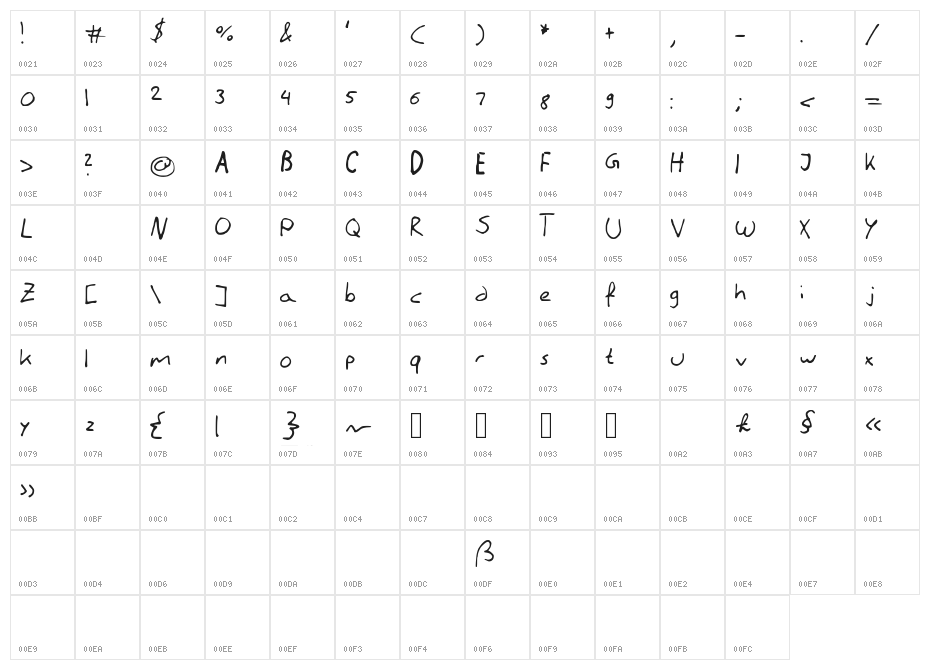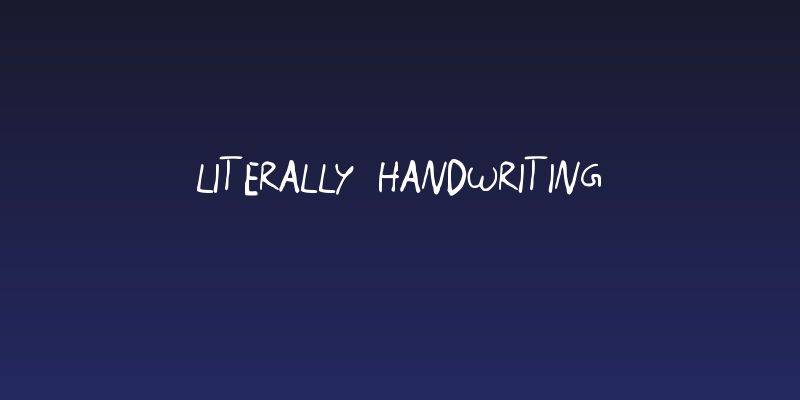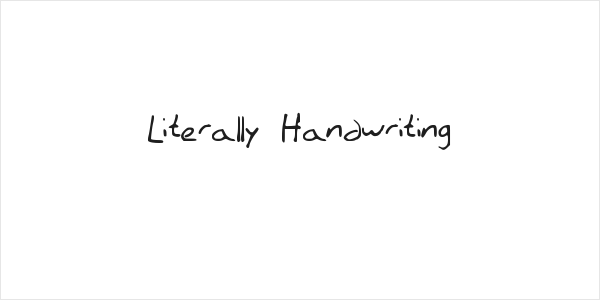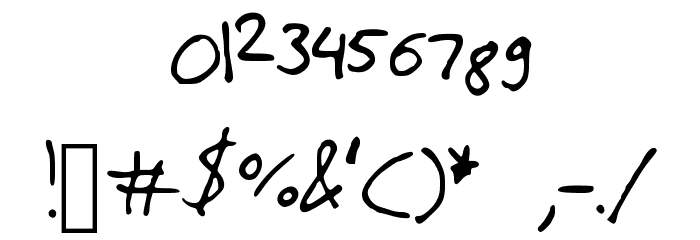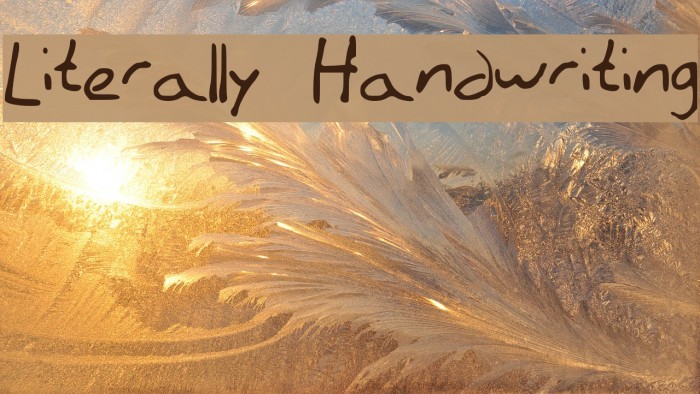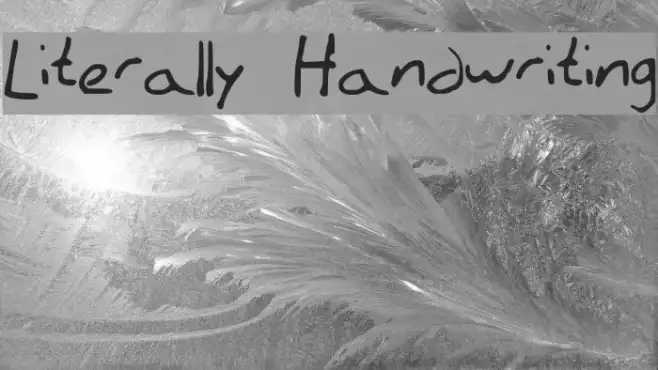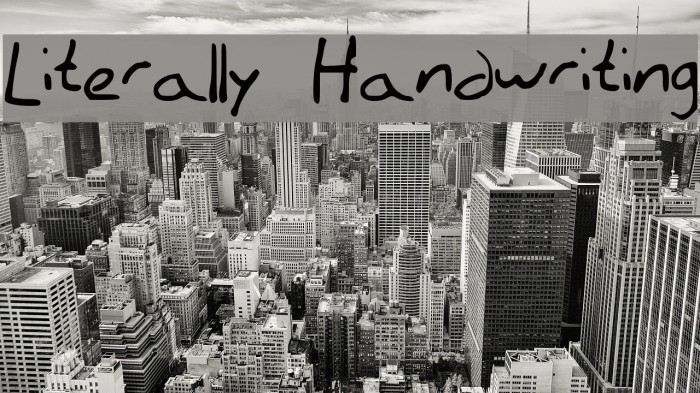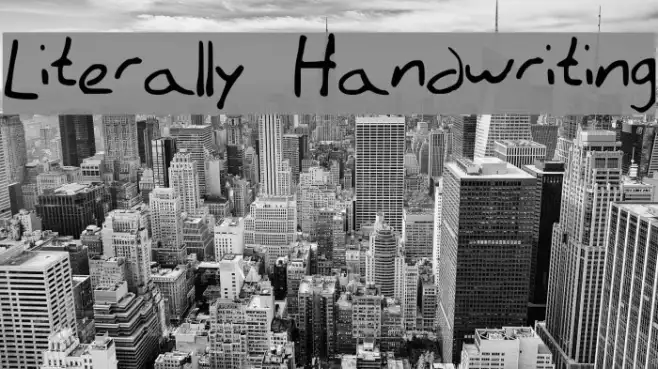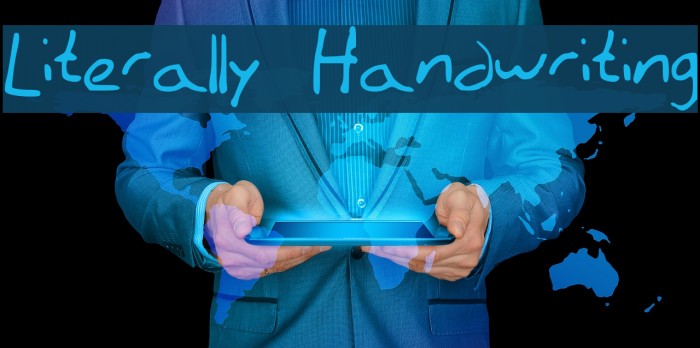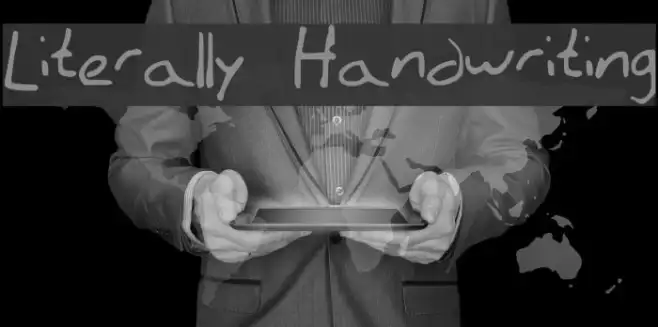
Literally Handwriting Font
Literally Handwriting Description
This font exudes a casual and personal touch, reminiscent of authentic handwriting. The characters are slightly irregular, adding to the charm and authenticity of the handwritten style. Uppercase and lowercase letters are well-defined, with a playful yet legible appearance. The numbers and special characters maintain the same handwritten aesthetic, ensuring consistency across all text elements. The strokes are smooth and fluid, giving a sense of ease and informality. This font is perfect for projects that require a personal or informal tone, such as greeting cards, personal notes, or creative projects that benefit from a human touch.
| Proposed Projects | Ideal for greeting cards, personal notes, invitations, and creative projects requiring a human touch. |